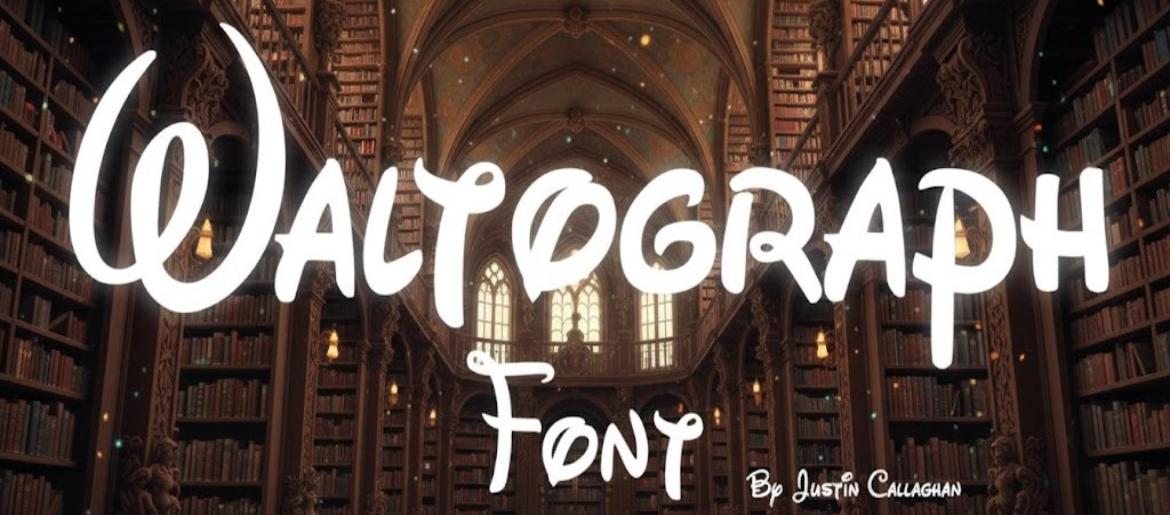
Waltograph Font
Waltograph Font is a playful, handwritten-style typeface inspired by classic Disney logo lettering. With its smooth curves and whimsical character, it’s perfect for children’s designs, themed parties, posters, logos, and fun branding. Waltograph brings a magical, nostalgic charm that instantly feels friendly, joyful, and full of imagination.
➤ Font Name: Waltograph
➤ Designer: Justin Callaghan
➤ Style: Script